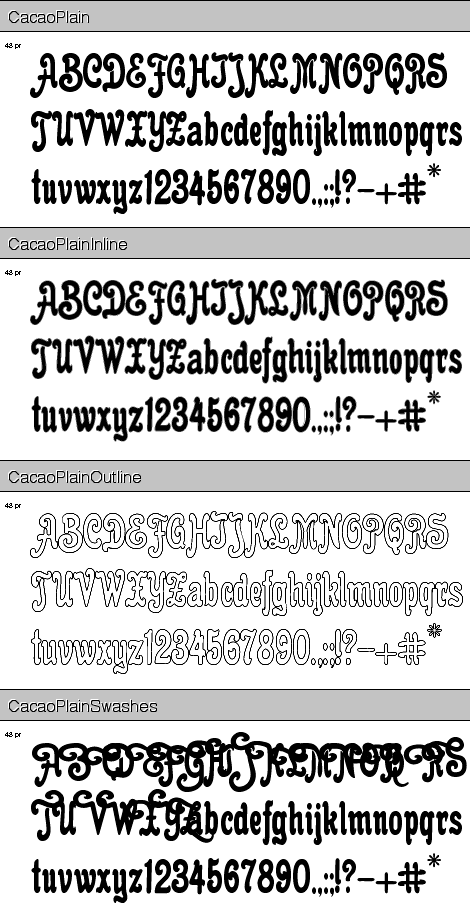
Cacao Plain Set (4 typefaces) (Wiescher Design)
Cacao is another one of my “found fonts”. I found this one in an old advertising for a French cocoa drink. Since I am a vervent lover of cocoa, I will give you my recipe for a normal coffee mug full of delicious hot cocoa. Mix three heaped teaspoons of sugar with one and a half to two teaspoons of finest cocoa powder. Then add a little cold milk, stir, and so on until you have a mushy creamy consistency. Now slowly add - always stirring - boiling hot water til the cup is almost full. Top with a little liquid cream and enjoy! If you have a package design job, use my Cacao font and stir in some creativity. Your sweet-tooth designer, Gert Wiescher.FONTHAUS END USER LICENSE AGREEMENT